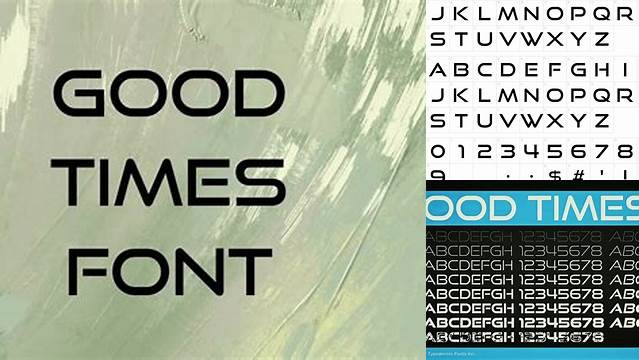
If you're looking to add a touch of retro charm to your designs, the Good Times font family is a fantastic choice. This font, with its playful and inviting style, can bring a nostalgic feel to any project. And the best part? You can often find a Good Times font family free download. Let's dive into everything you need to know about this delightful font and how to get your hands on it!
Good Times Font: A Retro Delight
Good Times font embodies a certain vintage flair. Its friendly appearance makes it perfect for various applications, from creating eye-catching headings to crafting engaging body text. The font’s distinctive characteristics offer a blend of style and readability, making it a versatile asset for any designer or enthusiast. Understanding the nuances of the Good Times font is crucial before incorporating it into your projects. This font family often includes multiple weights and styles, granting flexibility in how you apply it. Knowing the origins of this font can also help you appreciate its value. The Good Times font can evoke feelings of nostalgia and optimism. Its design inherently brings a sense of enjoyment to your projects, making it a great choice for anything related to entertainment, leisure, or fun activities. The versatility of the Good Times font allows it to be used in various contexts. Consider the font’s influence and the historical periods it represents. Using the Good Times font will add a unique touch to your design. This can range from posters and flyers to social media graphics and website designs. Using the Good Times font can ensure your designs stand out and make a lasting impression. It’s important to select the right weight and style to match your project's needs. The balance between visual appeal and readability is crucial when working with the Good Times font. Many designers find that using the Good Times font allows them to achieve that perfect retro look. The font's playful characteristics can enhance a project’s overall aesthetic. The Good Times font is a great option for those aiming to infuse a dose of personality into their creative endeavors. The right font can completely transform the look and feel of any design. Consider the intended audience when deciding to use the Good Times font. Keep in mind that this font may not be suitable for every project. The Good Times font’s charm lies in its distinctive design, making it perfect for various creative applications. The font's playful style can enhance a project's overall aesthetic. The history behind the Good Times font can add an extra layer of appreciation to your use. It is a font that encapsulates a feeling of nostalgia and enjoyment. It is also often available in different weights and styles, providing even more creative freedom. The Good Times font is a great tool for designers, offering both style and functionality. It is a fantastic choice for both professional and personal projects. Be sure to find the right version that fits your design needs.
Good Times Font Alternatives
If, for any reason, the Good Times font doesn't quite fit your needs, several alternatives can provide a similar aesthetic. These fonts capture a similar retro, playful, and friendly style. Consider fonts such as